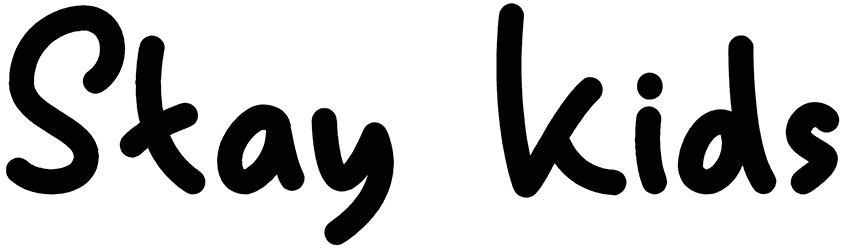
Stay Kids Font
When your design has playful and cute words, it isn’t surprising that you are good at communicating with your viewers. This sweet kids’ font can help you to make it happen. The playful characters of the Stay Kids font can convey a cheerful vibe. We suggest you test this kid’s font for your creative designs, like a baby shower Instagram post, and enjoy the engaging outcome.